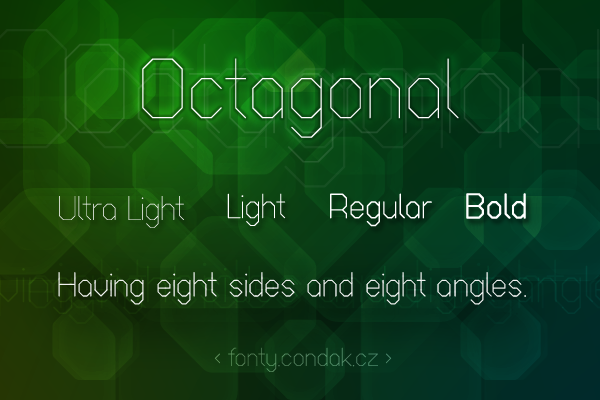
Font name: | Octagonal |
Author: | Vít Čondák |
Note by Vít Čondák | |
Simple font based on octagonal shape. Its design was inspired by old plotters and Logo language creations that both used mostly simple shapes. My favourite version for web headlines is Light. Lines of Ultra Light version are probably too thin to be readable on screen but it looks nice in the print. =) The other two versions are intended for small font sizes. |